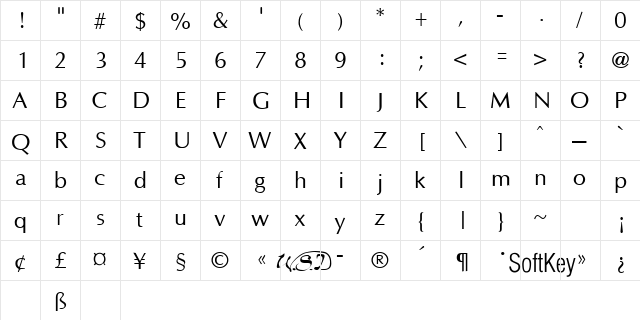
Optim Regular
Design Context for Optim Typeface
Optim offers clean, dependable letterforms without strong stylistic allegiance, making it a practical choice for designers who need flexibility.